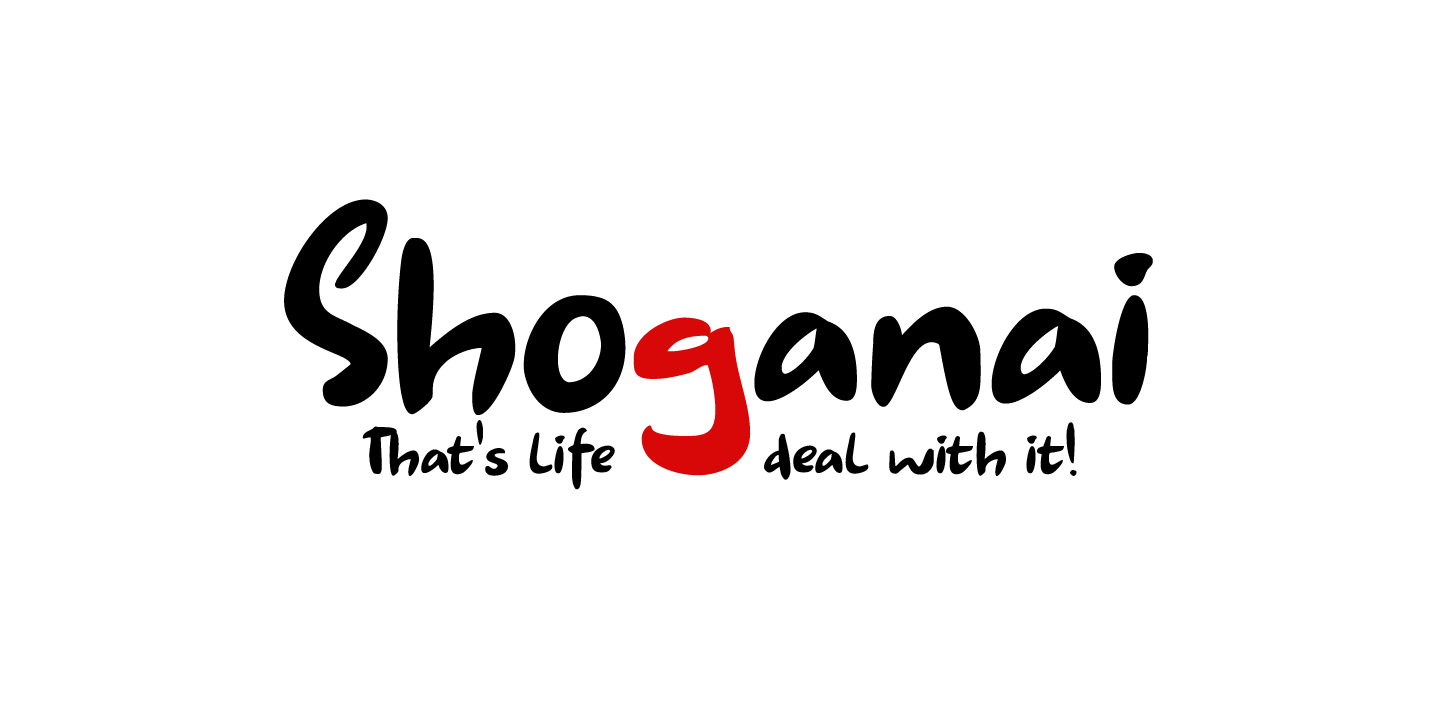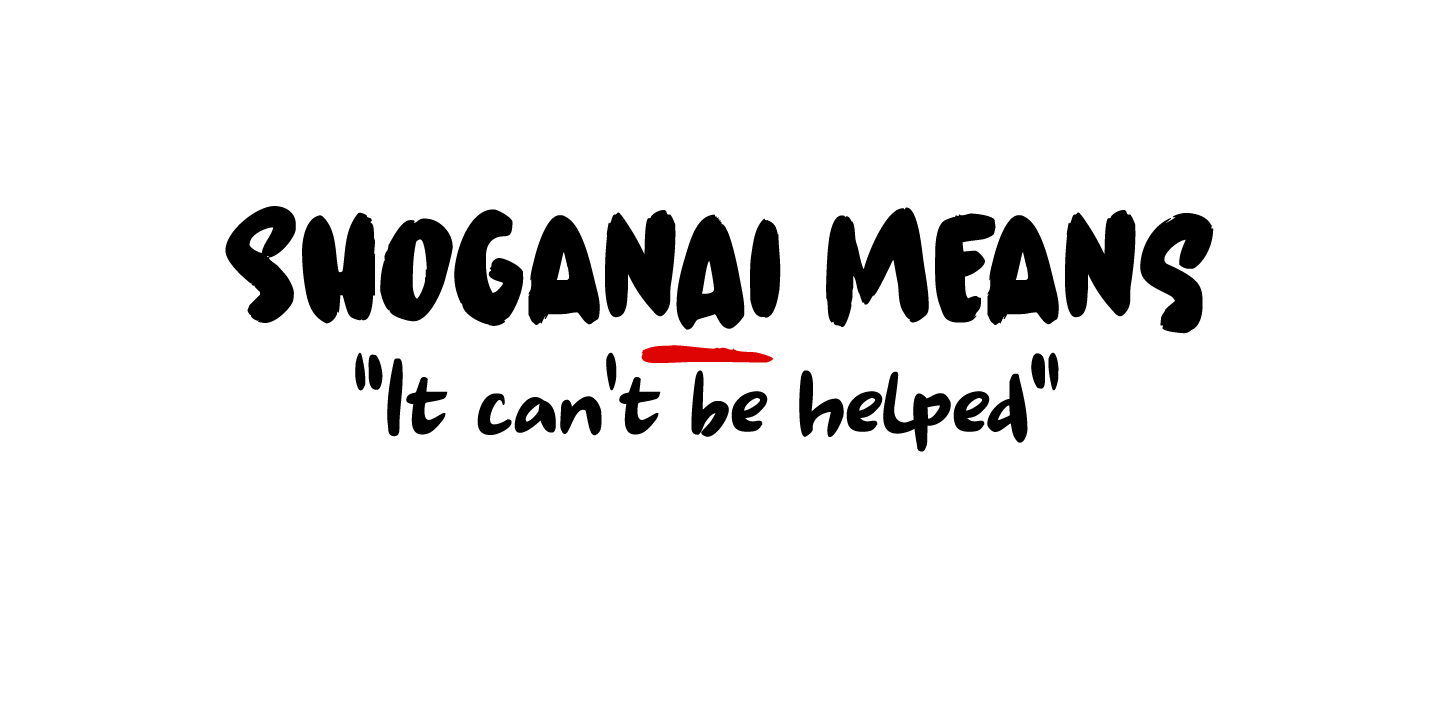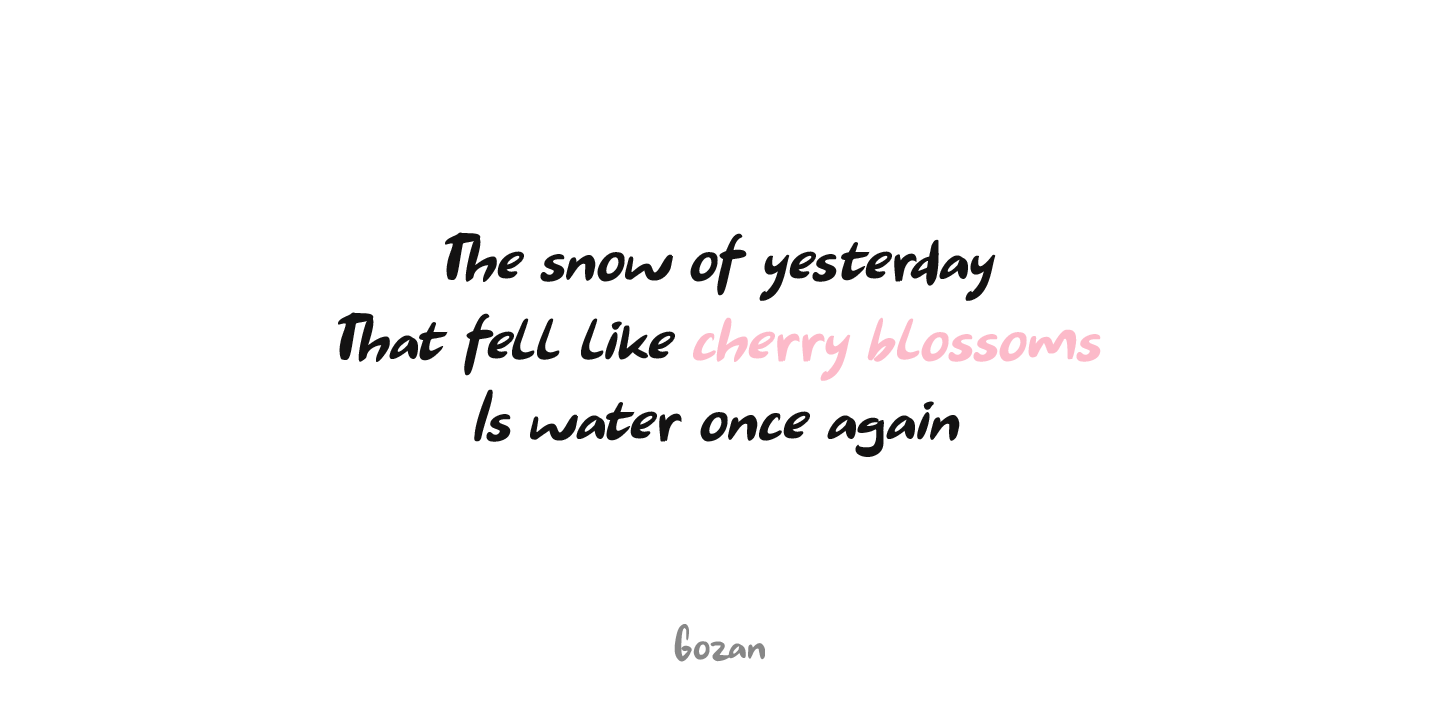
Shoganai
Font Family by Hanoded
I really like the Japanese language, as it has words that describe a whole world of meaning. Like Shoganai. It literally means: ?It cannot be helped?. That's life, get used to it. Shoganai sums up a lot of the Japanese culture and way of thinking: if things cannot be helped, then accept it and move on.
Shoganai is a set of Brush fonts: a thinner, script font and a heavy display font. Use if for book covers, product packaging and more. If you can't use it, then, well, Shoganai.